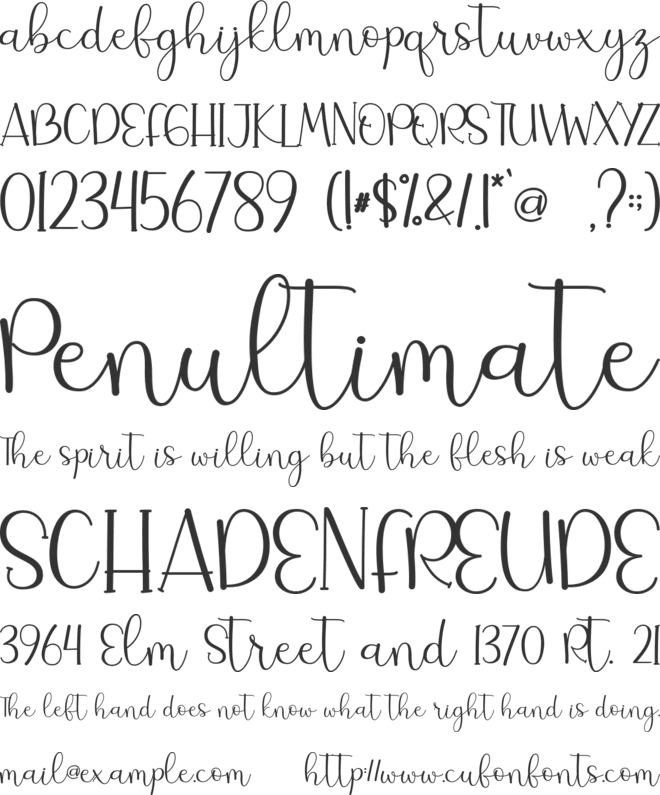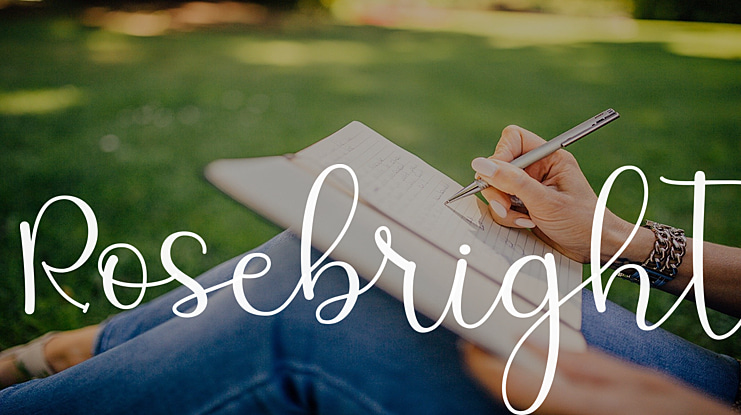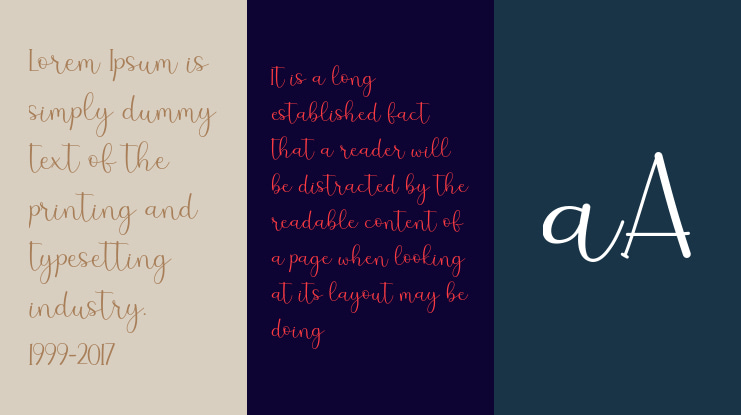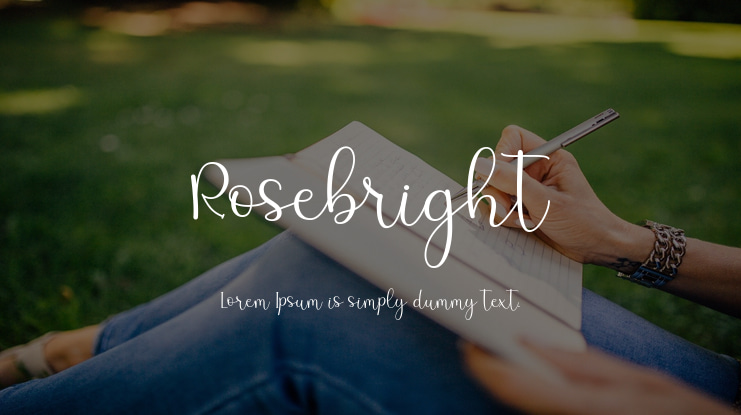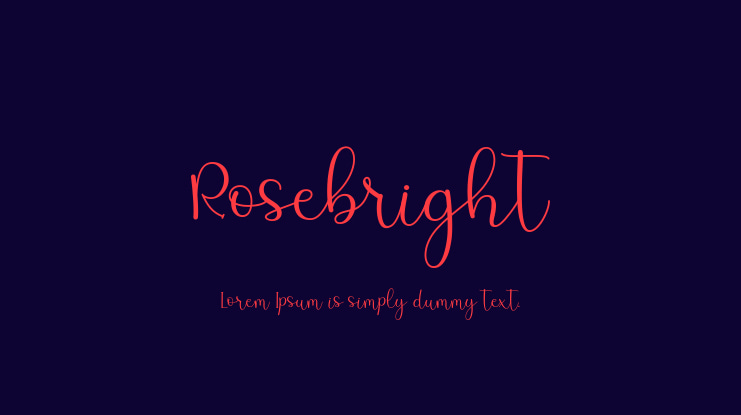
Rosebright Font
Rosebright is a cool display font. It can easily be matched to an incredibly large set of projects, so add it to your creative ideas and notice how it makes them stand out! Rosebright is PUA encoded which means you can access all of the glyphs and swashes with ease!